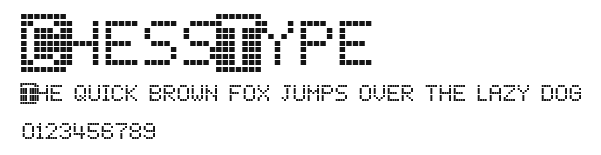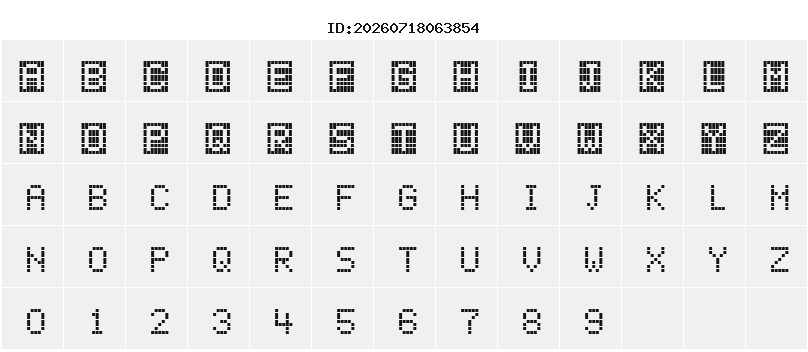
• Font Name: ChessType
• Designer: Carl Krull
• Description: ChessType is a black & white squared LCD pixel font. ChessType is created by Carl Krull. www.carlkrull.com - note: § + $ have been replaced with a filled and unfilled vertical pixelated line of space. ≠ + ± have been replaced with dotted vertical lines in opposition to one another. The $,§,± and ≠ still exist in the font-file, but in strange locations!